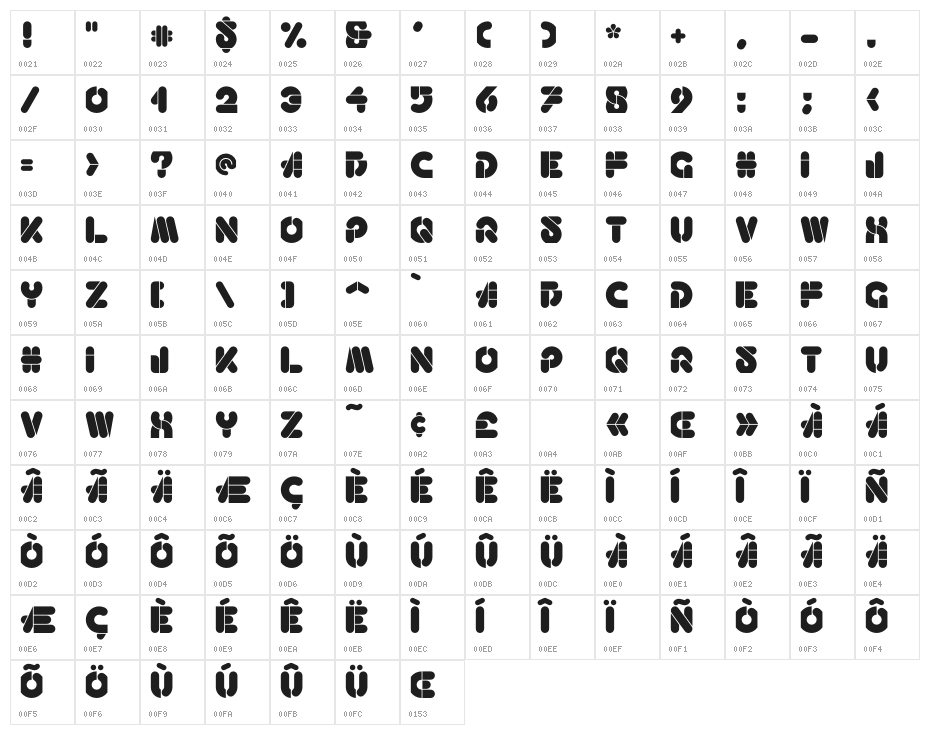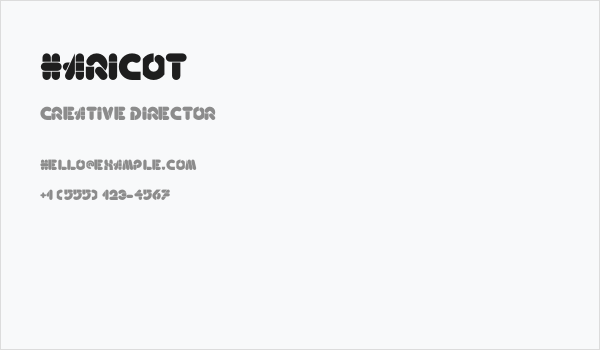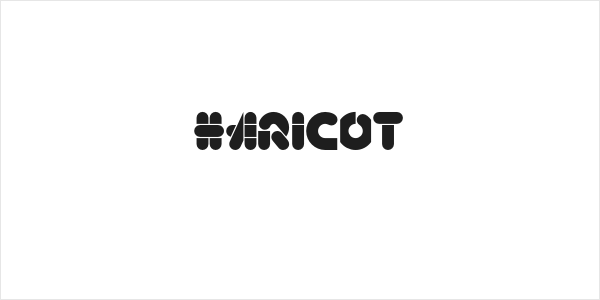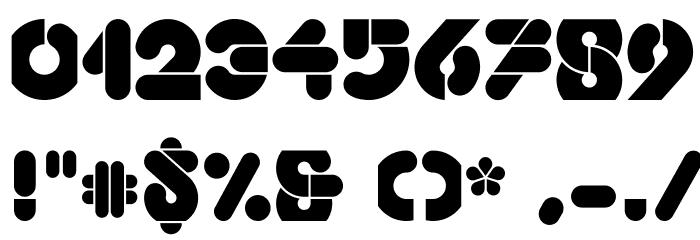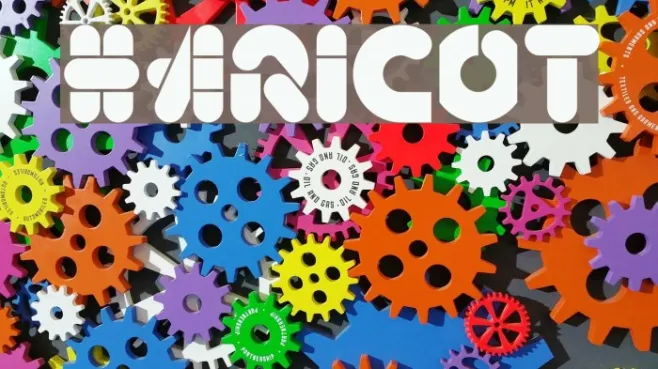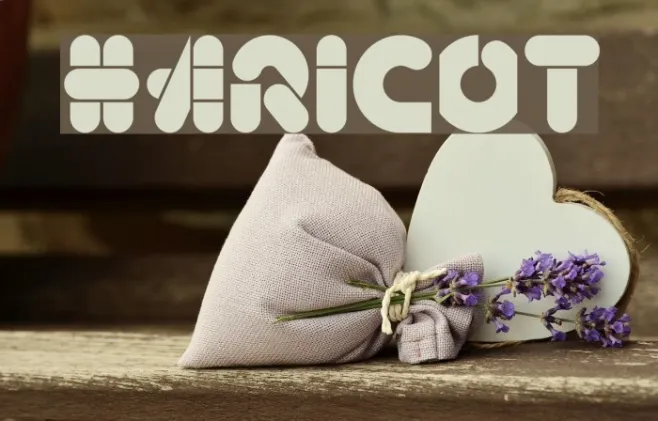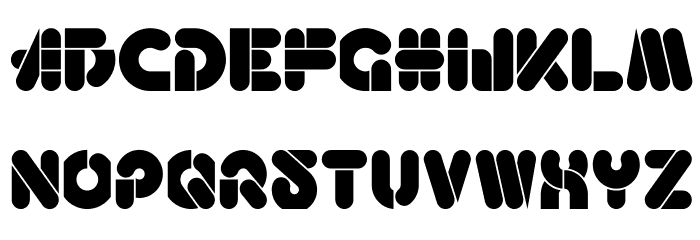
Haricot Font
Haricot Description
This font features a bold and geometric design, characterized by its thick, rounded shapes and unique cut-out elements within each letterform. The characters are constructed with a modular aesthetic, giving them a futuristic and industrial feel. The uppercase and lowercase letters maintain a consistent style, with the lowercase mirroring the uppercase in form and structure. Numbers and special characters follow the same design principles, ensuring uniformity across all glyphs. The font's distinct style makes it stand out, ideal for projects that require a modern and eye-catching typeface.